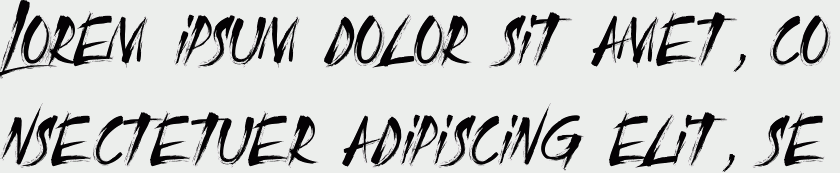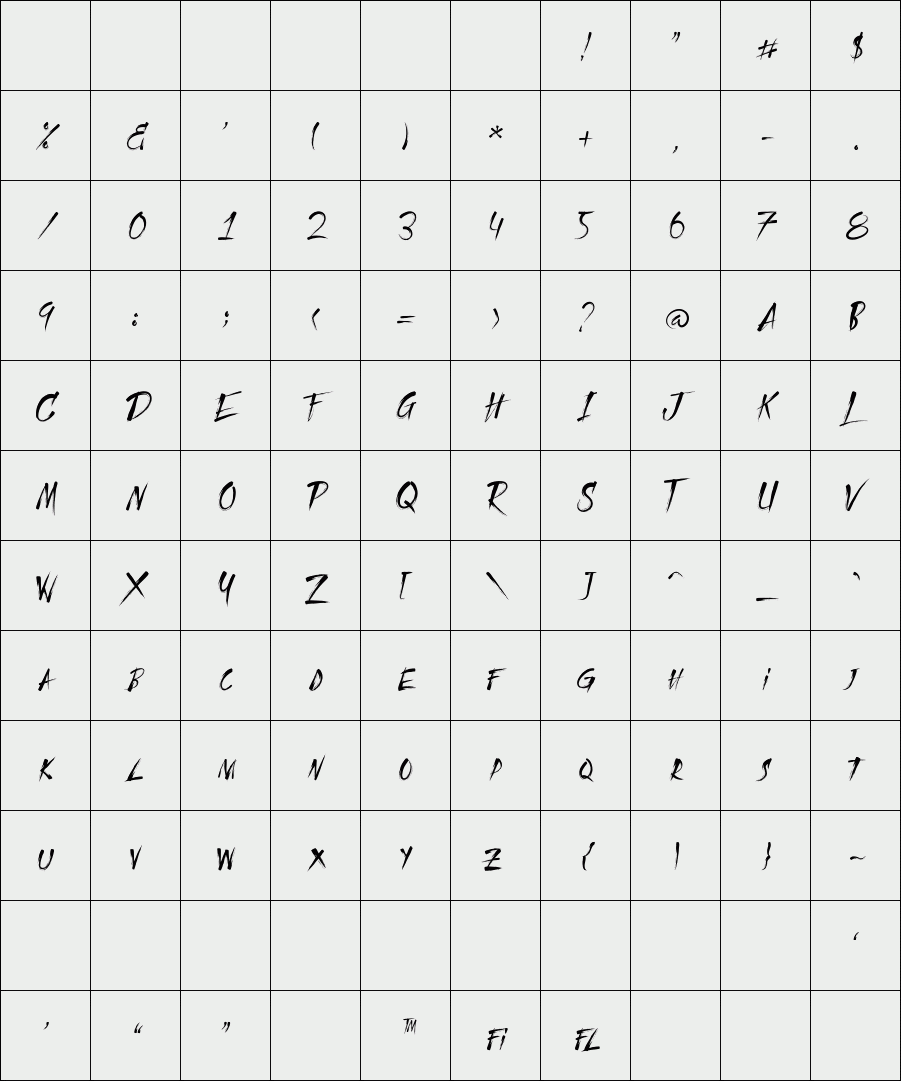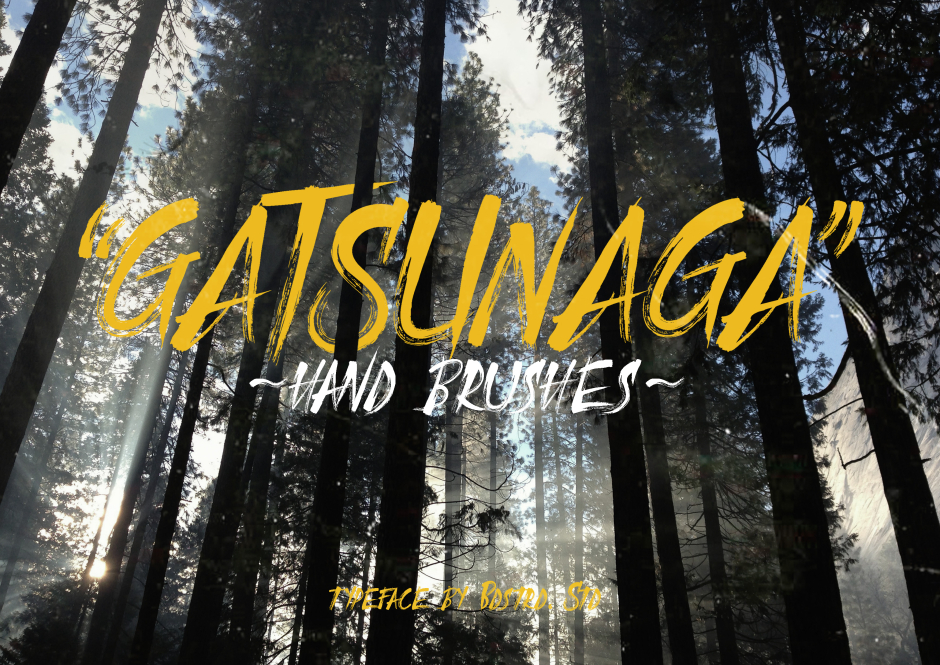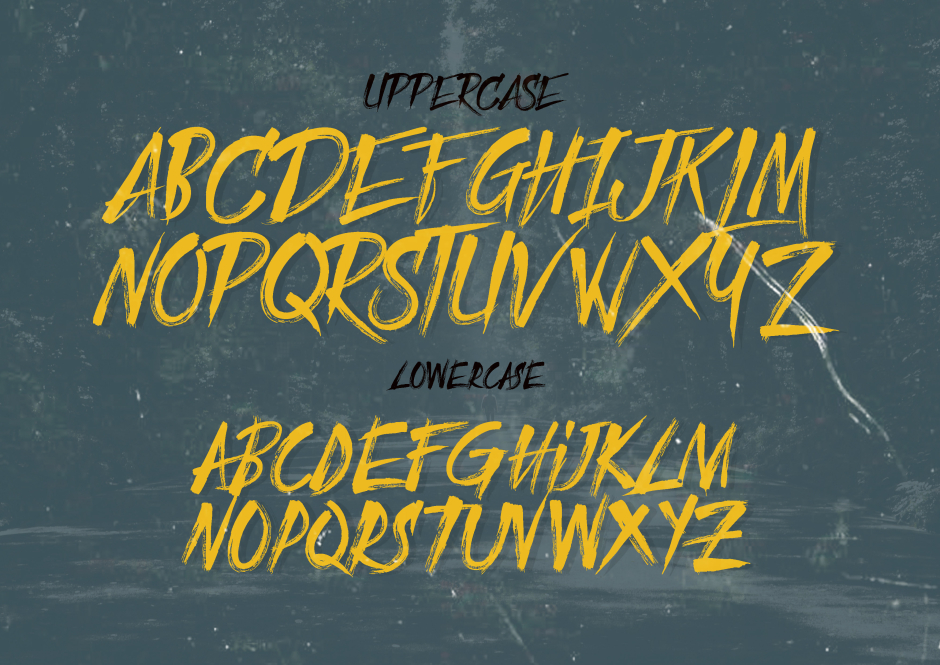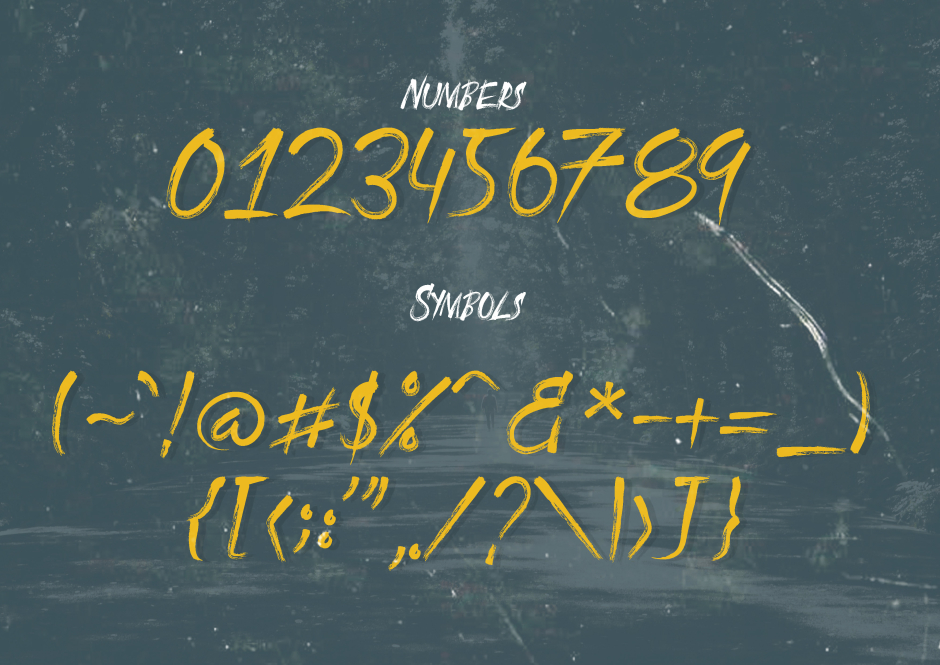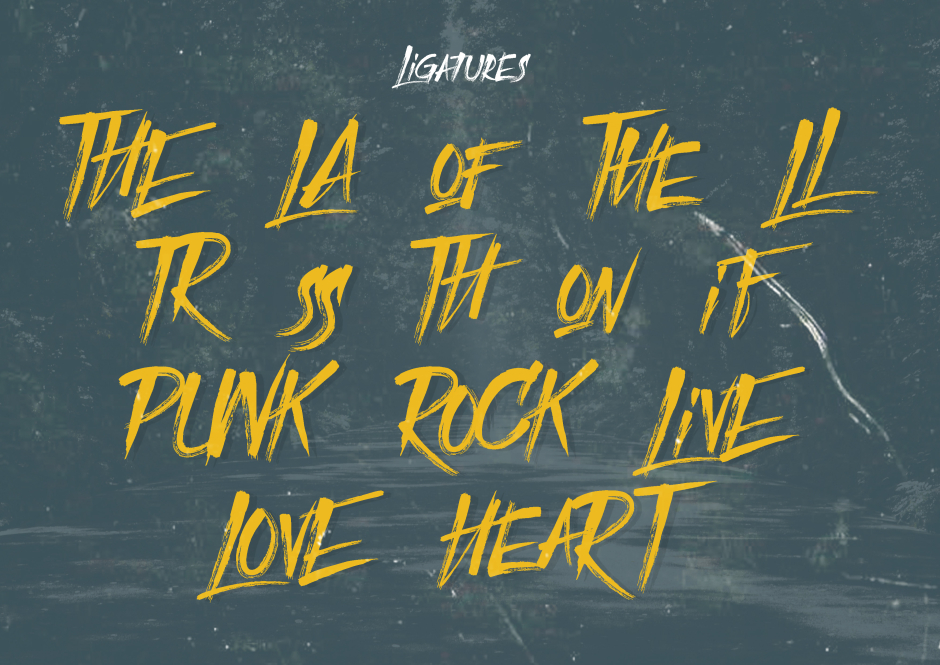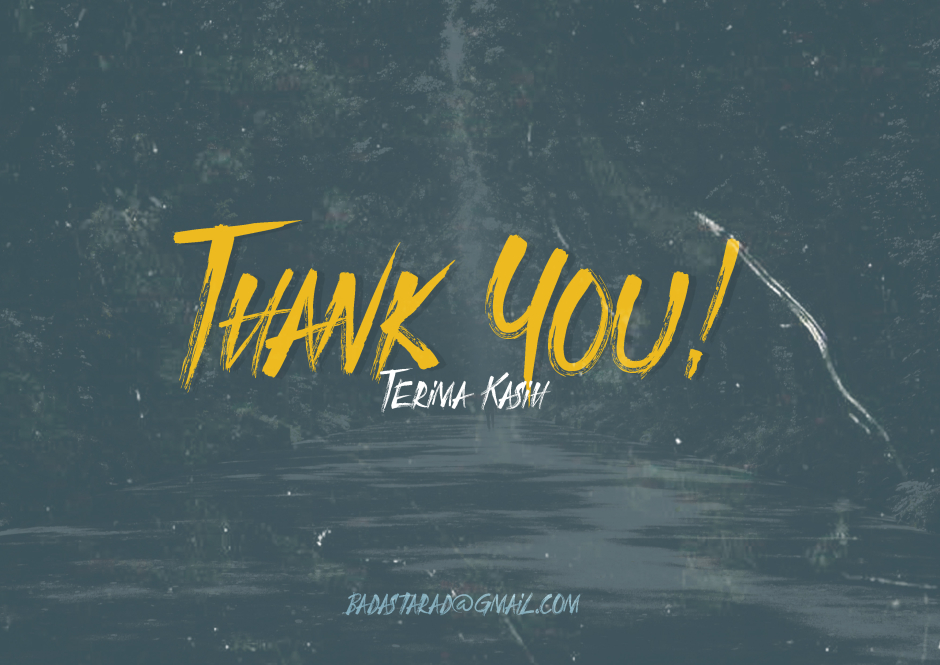
Gatsunaga Hand Brush
Gatsunaga Hand Brushes inspired from scratch a samurai sword in a bloody soft objects. The impression scratch like sharp, a pain and a velocity.
Gatsunaga Hand Brushes dedicated to a design depicting a strength and speed. But did not rule, this typeface design can be used for other needs, such as music concerts, movie posters, book covers, t-shit, and so forth.